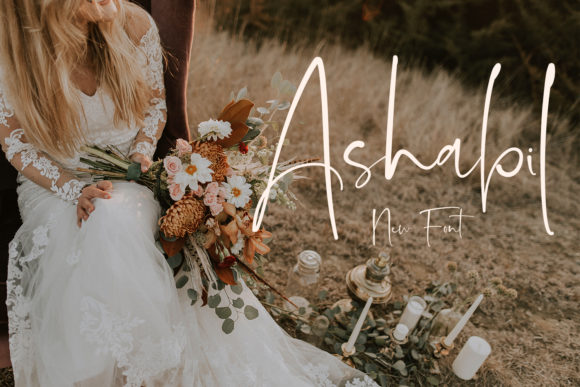
Ashabil Font: Elevating Web Design with Classy Script
Ashabil for High-Converting Landing Page Headers
Ashabil is an exquisite handwritten font that serves as a powerful visual anchor for landing pages where first impressions dictate conversion rates. When designing hero sections for digital products or service-based websites, the typography must immediately communicate value and emotion without sacrificing clarity. This Script Handwritten typeface bridges the gap between traditional calligraphy and modern web aesthetics, allowing designers to create headers that feel personal yet professionally polished. In high-stakes environments like SaaS landing pages or coaching funnels, using Fonts that carry emotional weight can significantly reduce bounce rates by making the user feel a human connection behind the screen.
The contemporary freshness of Ashabil makes it particularly effective for above-the-fold content. Unlike overly ornate vintage scripts that can struggle with readability on varying screen sizes, this font maintains open counters and balanced stroke widths. This ensures that even when used in large display sizes for headlines, the letterforms remain distinct and legible. For web designers focused on conversion optimization, this means you can leverage the warmth of handwriting to build trust while maintaining the sharp visual hierarchy necessary for guiding users toward call-to-action buttons. The font’s masterful design allows it to sit comfortably against negative space or subtle gradient backgrounds, ensuring the message remains the focal point of the viewport.
Integrating Ashabil into Boutique E-Commerce Branding
Digital storefronts benefit immensely from Ashabil because it adds a layer of bespoke luxury that standard system fonts simply cannot achieve. For online shop banners, product category titles, and promotional overlays, this Script Handwritten style signals craftsmanship and attention to detail. When customers browse jewelry, artisanal goods, or premium lifestyle products, the typography acts as a silent salesperson, reinforcing the price point and quality of the items. Fonts in this category are often too messy for commercial use, but Ashabil retains classy calligraphic influences that align perfectly with sophisticated brand identities.
From a UI design perspective, consistency is key to reducing cognitive load. Using Ashabil for specific branding elements—such as sale badges, "New Arrival" tags, or signature sign-offs in email marketing templates—creates a cohesive visual language across the entire shopping experience. It distinguishes promotional content from functional navigation without creating visual discord. Designers should utilize this font to highlight emotional triggers rather than functional data; for example, use it for "Handmade with Love" or "Limited Edition Collection" while keeping pricing and SKU numbers in a clean sans serif. This strategic application enhances the perceived value of the digital store and supports a premium user experience that encourages higher average order values.
Optimizing Ashabil Readability for Mobile Interfaces
Responsive web design demands that Ashabil performs flawlessly across devices, maintaining its exquisite character without breaking the layout on smaller screens. As mobile traffic continues to dominate, selecting Script Handwritten fonts that scale gracefully is a critical technical consideration. While Ashabil feels fresh and contemporary, its intricate details require careful handling in responsive CSS. Designers must test various breakpoints to ensure that the connecting strokes do not become too thin to render on low-density displays or too thick on high-resolution retina screens. Fluid typography techniques, such as using clamp() functions in CSS, allow the font size to adjust dynamically, preserving the intended visual impact from desktop monitors down to compact smartphone viewports.
Accessibility should never be compromised for style when implementing decorative Fonts in digital interfaces. Although Ashabil is highly legible for a script, it is best reserved for headings, accents, and short phrases rather than body copy. For users with dyslexia or visual impairments, dense blocks of connected text can be challenging to parse. Therefore, the optimal UX strategy involves using Ashabil to draw attention to key information while relying on accessible sans serif or serif typefaces for extended reading. Additionally, ensuring sufficient color contrast between the script and its background is essential. Light-colored Ashabil text on a dark hero image can look stunning, but designers must verify WCAG compliance to ensure the aesthetic choice does not exclude users or harm SEO performance through poor usability signals.
Strategic Font Pairing with Ashabil for Digital Hierarchy
Ashabil establishes a strong personality that requires supportive, neutral partners to create a balanced web layout. Because this Script Handwritten font carries significant visual weight and decorative flair, pairing it with another display font often leads to competition and clutter. Instead, successful digital product creators typically pair Ashabil with geometric sans serifs or minimalist serifs. The clean lines of a modern sans serif provide the necessary structural foundation, allowing the classy calligraphic influences of Ashabil to pop as the primary attention-grabber. This contrast is fundamental to establishing a clear visual hierarchy where the user instinctively knows what to read first, second, and third.
When building design systems or brand kits, define specific roles for each typeface to maintain consistency across multiple pages and platforms. For instance, assign Ashabil exclusively to H1 and H2 tags, testimonial highlights, and logo lockups, while reserving your secondary font for navigation menus, button labels, and paragraph text. This disciplined approach prevents "font fatigue" and ensures the interface remains intuitive. For editorial-style blogs or course sales pages, consider pairing Ashabil with a readable serif font to evoke a magazine-like sophistication. The interplay between the organic flow of the script and the structured rhythm of the body text creates a dynamic reading experience that keeps users engaged longer, signaling positive engagement metrics to search engines.